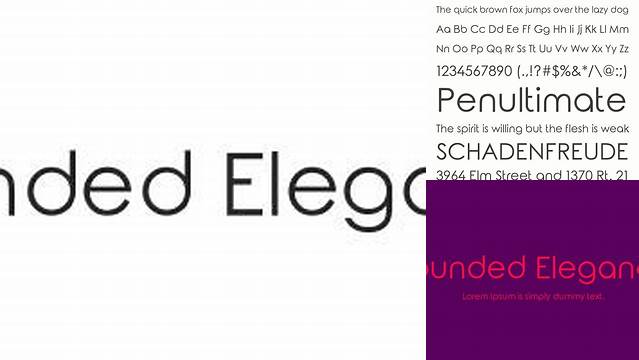
Rounded Elegance Regular is a typeface that whispers sophistication while maintaining a friendly and approachable demeanor. This font, available for free download, is a versatile asset for any designer, offering a blend of classic charm and contemporary flair. Whether you're crafting a website, designing a logo, or creating print materials, Rounded Elegance Regular can add a touch of refinement to your projects. This article will dive deep into the nuances of this beautiful font, exploring its features, usage, and how to obtain it without any cost.
The Allure of Rounded Elegance Regular: A Detailed Look
Rounded Elegance Regular, at its core, is a sans-serif font characterized by its subtly rounded terminals and clean lines. This design choice gives it a softer, more inviting aesthetic compared to fonts with sharp edges. This makes it perfect for projects where you want to convey warmth, friendliness, or a touch of elegance without being overly formal. The font's readability is also a key factor in its popularity. The well-defined letterforms and generous spacing between characters ensure that text remains legible even at smaller sizes, making it suitable for both headlines and body text. This font is like the best of both worlds. The weight of the font is also quite balanced, meaning that the strokes that make up each character are not too thin or too thick. This contributes to its overall readability and ensures that it doesn't get lost in the background of your design. Its overall appeal is that it will look like something that is from a luxury store.
Beyond its visual appeal, Rounded Elegance Regular is also prized for its versatility. It adapts well to a wide range of design applications. From website headers to product packaging, this font can add a polished touch to any project. This versatility is a testament to the thoughtful design of the font, which balances elegance with practicality. Its simplicity also means that it works well in many different contexts. Another factor in its versatility is its neutrality. Because it doesn't have a strong personality of its own, it can be paired with many other fonts and design elements without creating clashing. This makes it an incredibly useful tool for designers of all types, as it allows them to create a range of looks, from minimalist and modern to classic and refined. It can blend well with other types of fonts to complete a project, like a display font for the title of a project, and then Rounded Elegance Regular for the rest of the contents, such as the description or other information.
Key Features That Define Rounded Elegance Regular
Rounded Elegance Regular boasts several key features that contribute to its distinct character and widespread appeal. These characteristics are important to know before you go and download the font. The first is its aforementioned rounded terminals. The subtle curves at the ends of the letter strokes give the font its soft and inviting appearance. This contrasts with the sharp angles found in other sans-serif fonts, resulting in a more approachable look. These are a visual representation of the font's elegant personality. The second key feature is its excellent readability. The characters are well-defined, and the spacing is generous, ensuring that text remains easy to read even at smaller sizes. Readability is important for any font, because no matter how great the font looks, it has no point if it cannot be read by the general public. This is especially important in body text, where clarity is paramount. This is very essential when designing the font for a website or other types of media. The third is its balanced weight. The strokes that make up each character are neither too thin nor too thick, resulting in a harmonious visual experience. This balance contributes to the overall legibility and aesthetic appeal of the font. This weight ensures that the font is versatile and adapts well to a variety of contexts. Because of this, the font can be used for almost all types of projects that you may be undertaking.
These features work together to create a font that is both visually appealing and highly functional, making Rounded Elegance Regular an excellent choice for a variety of design projects.
Putting Rounded Elegance Regular to Work: Design Applications
Rounded Elegance Regular is a versatile font that can be effectively applied in a wide array of design projects. Its inherent qualities, which include readability and visual appeal, make it suitable for many different types of projects. For branding, it's an excellent choice for logos, where the rounded terminals can convey a sense of approachability and friendliness. Its clean lines also give it a modern feel, which is crucial in today's market. It works well for both small and large brands alike. In web design, Rounded Elegance Regular is a great option for headings, subheadings, and even body text. Its excellent readability ensures that your content remains clear and easy to understand on various devices. Because of its flexibility, it looks great at any size. In print materials, such as brochures and flyers, Rounded Elegance Regular can add a touch of elegance and sophistication, making your designs more visually engaging. The rounded edges make your project look more appealing to the eye. The versatility of this font extends to other creative areas, such as social media graphics, presentations, and even product packaging. Its adaptability allows you to express a broad range of styles and aesthetics. Whether you aim to create a minimalist design or something more elaborate, this font can be a valuable asset.
Understanding how to effectively utilize the font in your design projects will help you achieve the desired outcomes. This will allow you to express yourself the way that you would like. This knowledge also includes the different ways that this font may be used to give your project a certain type of feel.